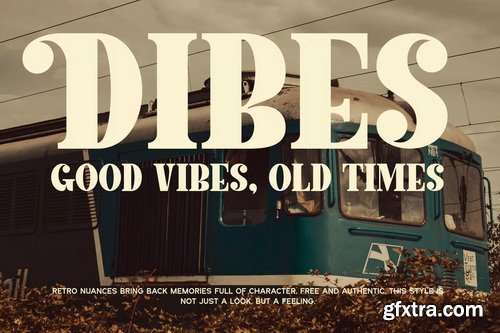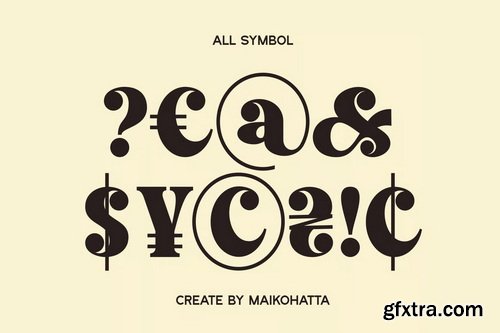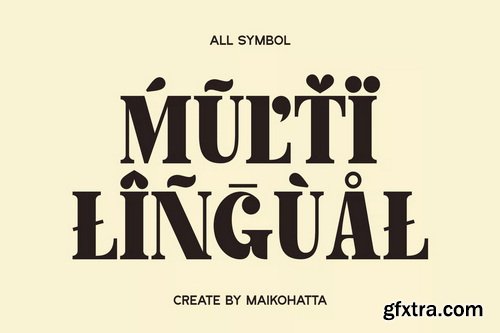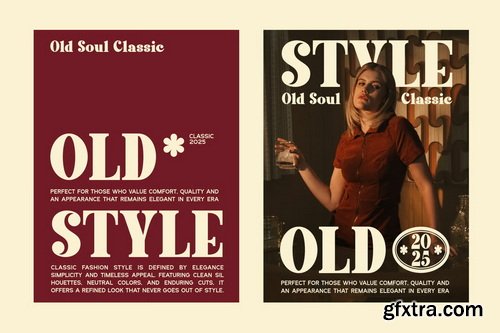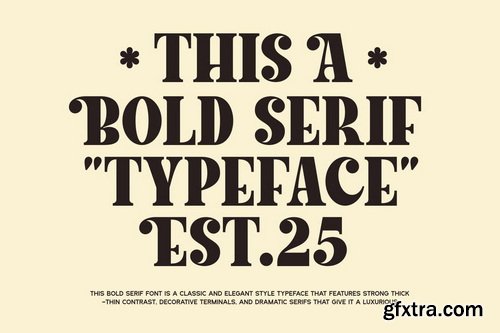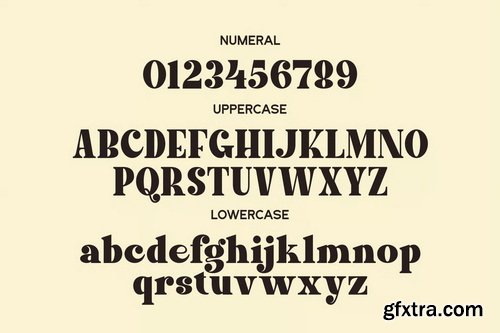
Lacer Serif Bold Typeface
A serif bold typeface features thick, prominent strokes and characteristic serif endings—the small lines or extensions at the ends of letterforms. This style conveys a sense of strength, formality, and classical sophistication. The bold weight enhances visibility and emphasis, making it ideal for headlines, logos, book covers, or any application where readability and authority are important. Serif bold fonts often evoke a timeless, editorial, or traditional feel, while still demanding attention through their weight.